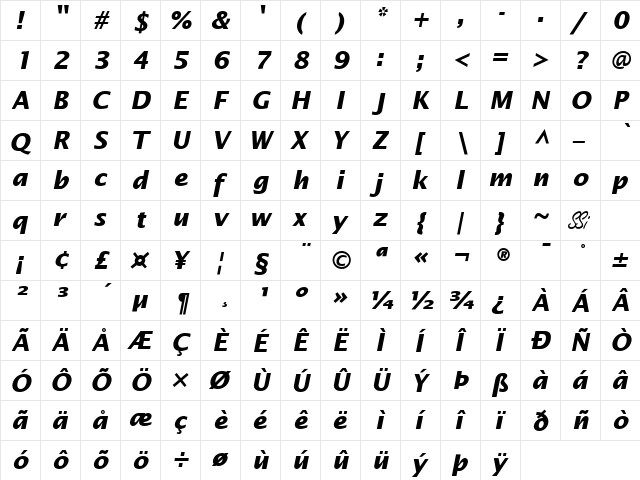
Insight Sans SSi Bold Italic
Design Context for Insight Sans SSi Typeface
Insight Sans SSi is a composed and adaptable typeface that performs quietly and consistently across a wide range of design contexts. Its italic angle brings a sense of urgency and motion to the letterforms. The heavy weight commands attention and anchors typographic hierarchies.
Pro Tip: Use Insight Sans SSi for emphasis, pull quotes, and subheadings where its slanted energy can add rhythm to the layout.